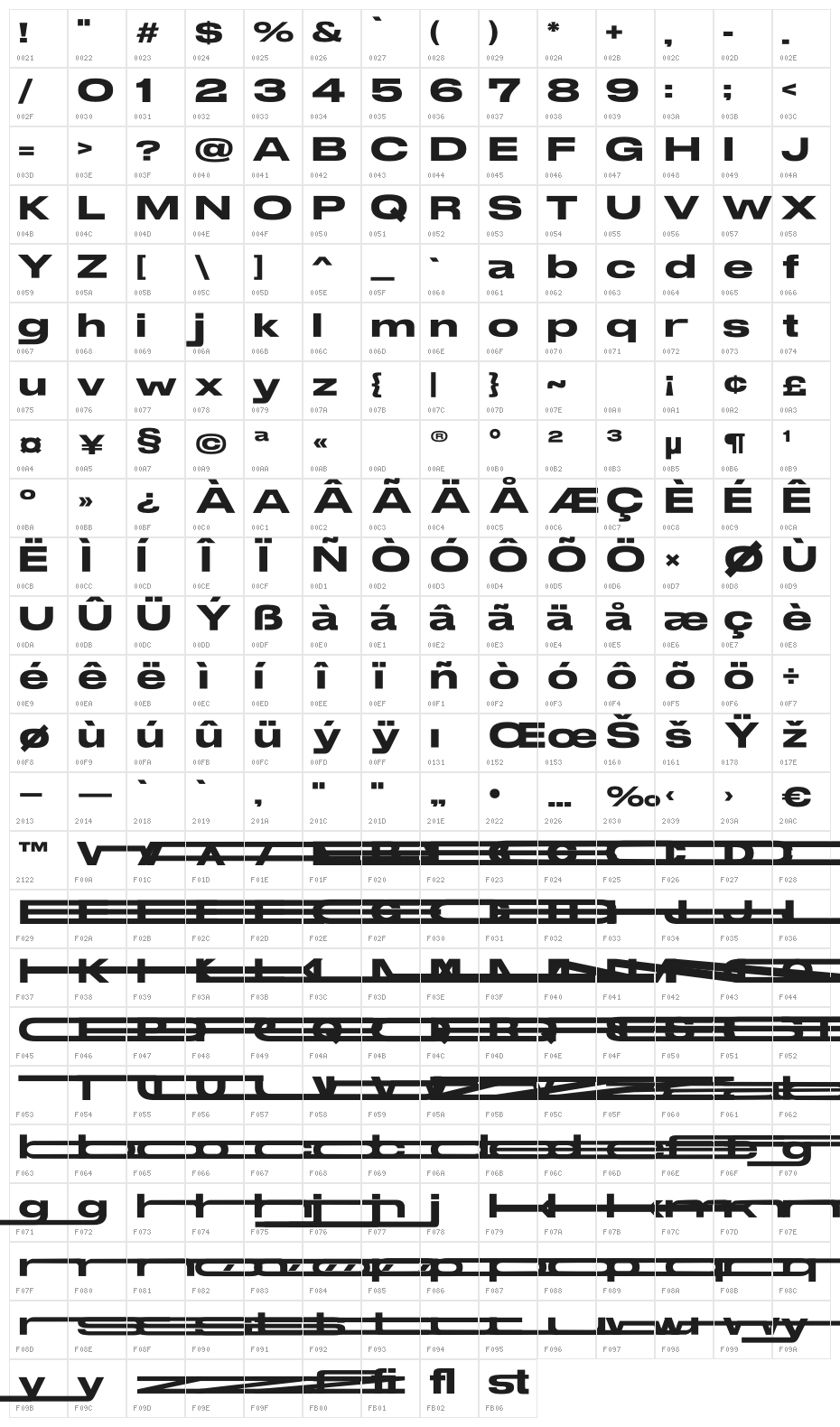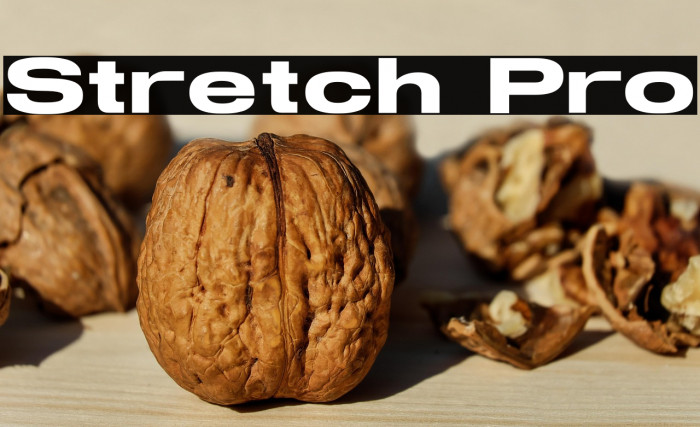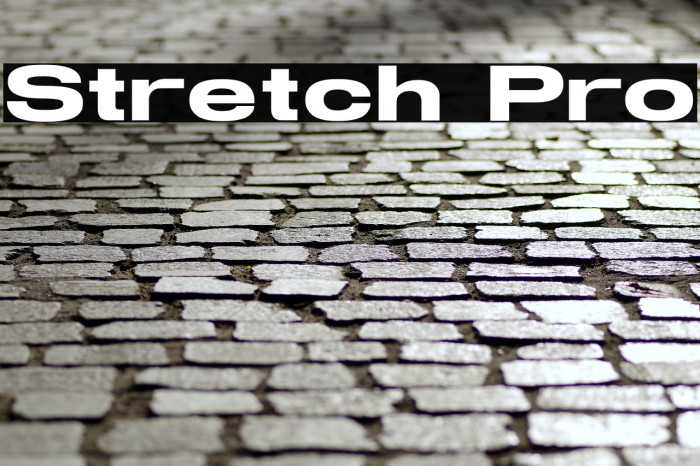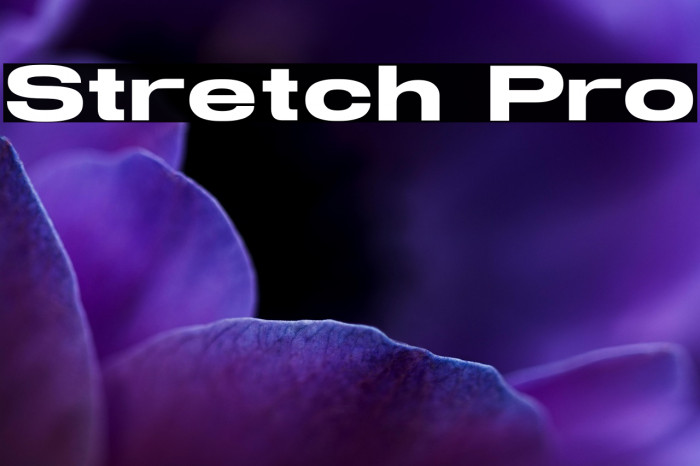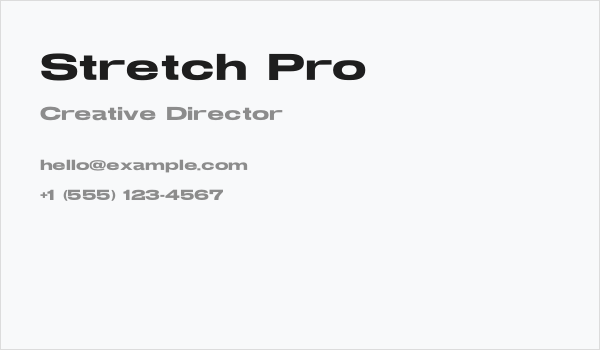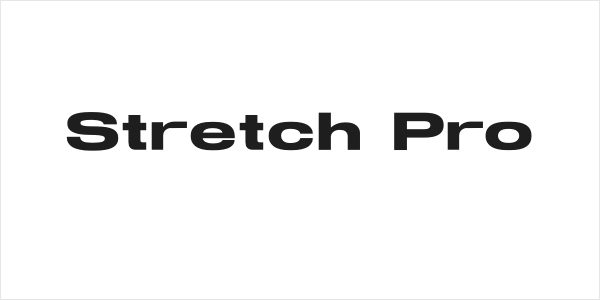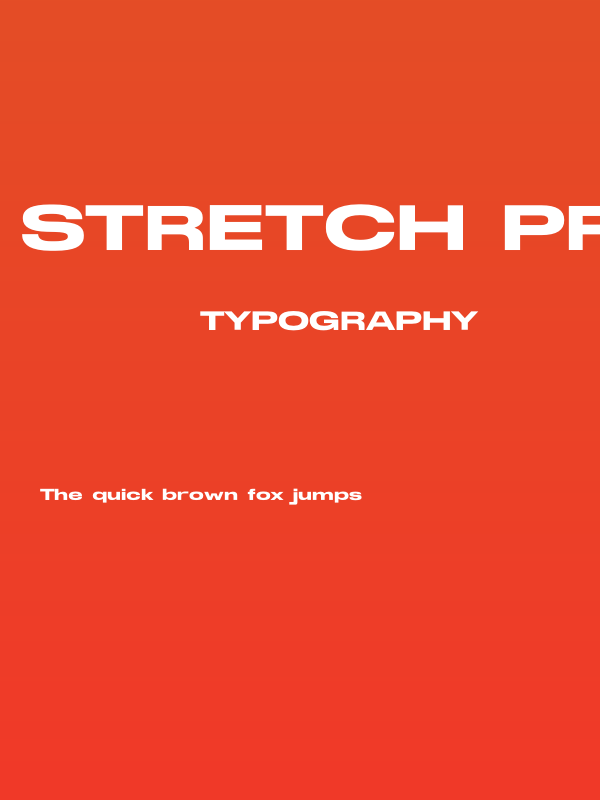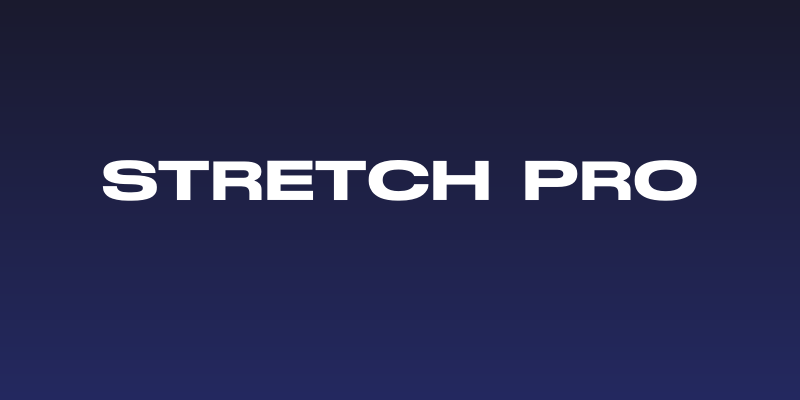
Stretch Pro Font
| Larghezza | Expanded |
| Caso d'uso | Headlines, Logos, Branding |
| Progetti proposti | Ideal for headlines, logos, branding materials, and any project requiring a strong, modern aesthetic. |